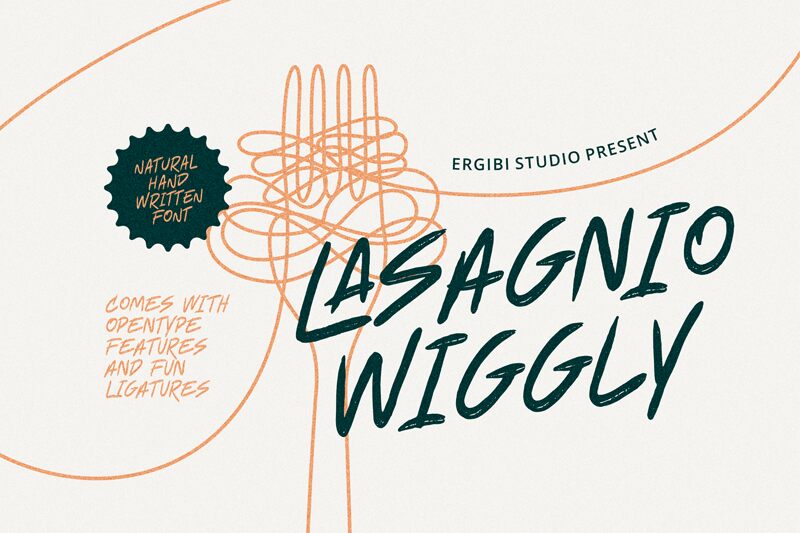
Lasagnio Wiggly font by Riyadh Rahman is a free comic font that brings a dynamic flow to each of its letterforms. Its organic texture gives a modern appeal that suits various projects of different natures. Its expressive form, informal style, and lively impression are best presented in bold designs with a truly large impact. Consider it for sign development, magazine enhancements, and book covers.
Lasagnio Wiggly’s casual tone can also be transferred to designs related to brands and businesses, from logos to shopping bags and business cards. A more personal side can also be displayed, which makes it useful in invitations, flyers, and greeting cards. Other uses for this font include websites and social media platforms.